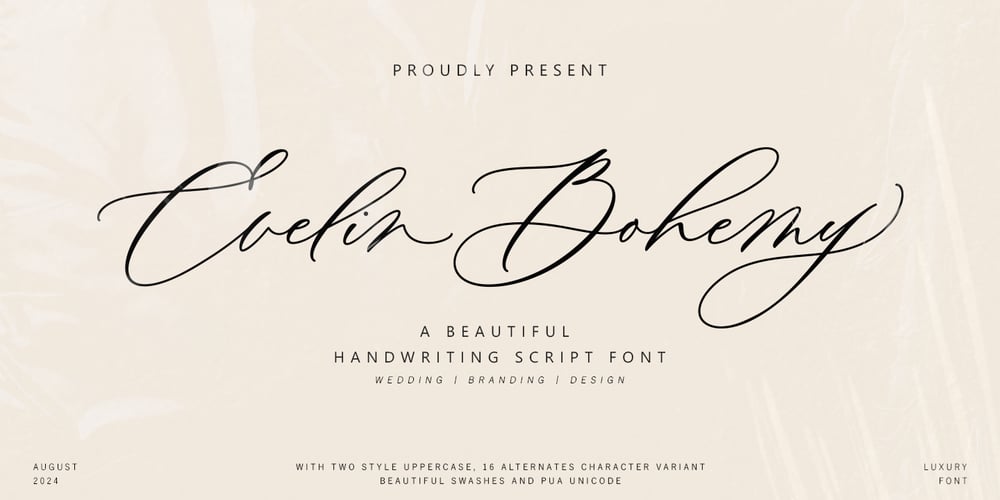
Evelin Bohemy Font Family was designed by Jamaluddin and published by Jamalodin. Evelin Bohemy contains 1 styles and family package options. Evelin Bohemy is a beautiful Handwritten script font that is suitable for branding, wedding invitations, greeting cards, posters, name card, quotes, blog header, logo, fashion, apparel, letter, stationery and other projects. Come with 500+ glyphs. Uppercase & Lowercase (two style), International Language, Symbols Support Punctuation & Numeral, Alternates Stylistic Set 1-16 Character Variant Contextual. And this Font has given PUA Unicode. so that all the alternate characters can easily be accessed in full by a craftsman or designer.